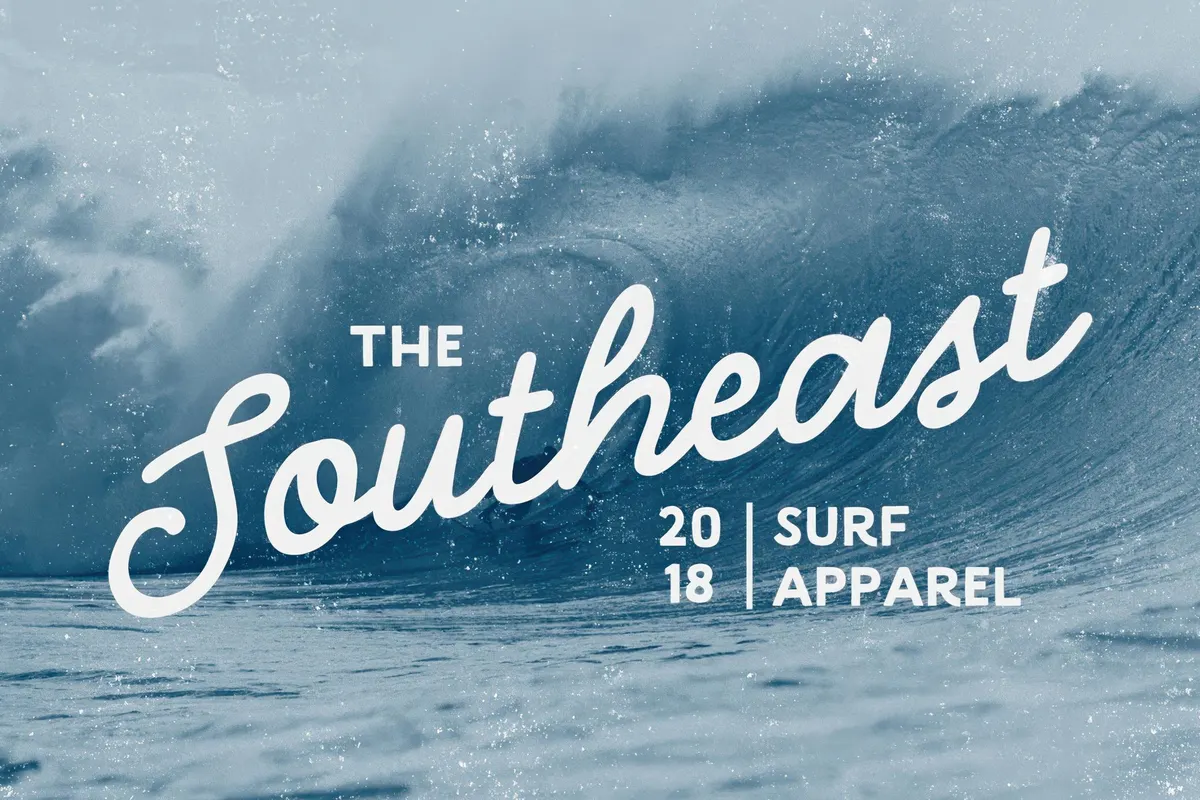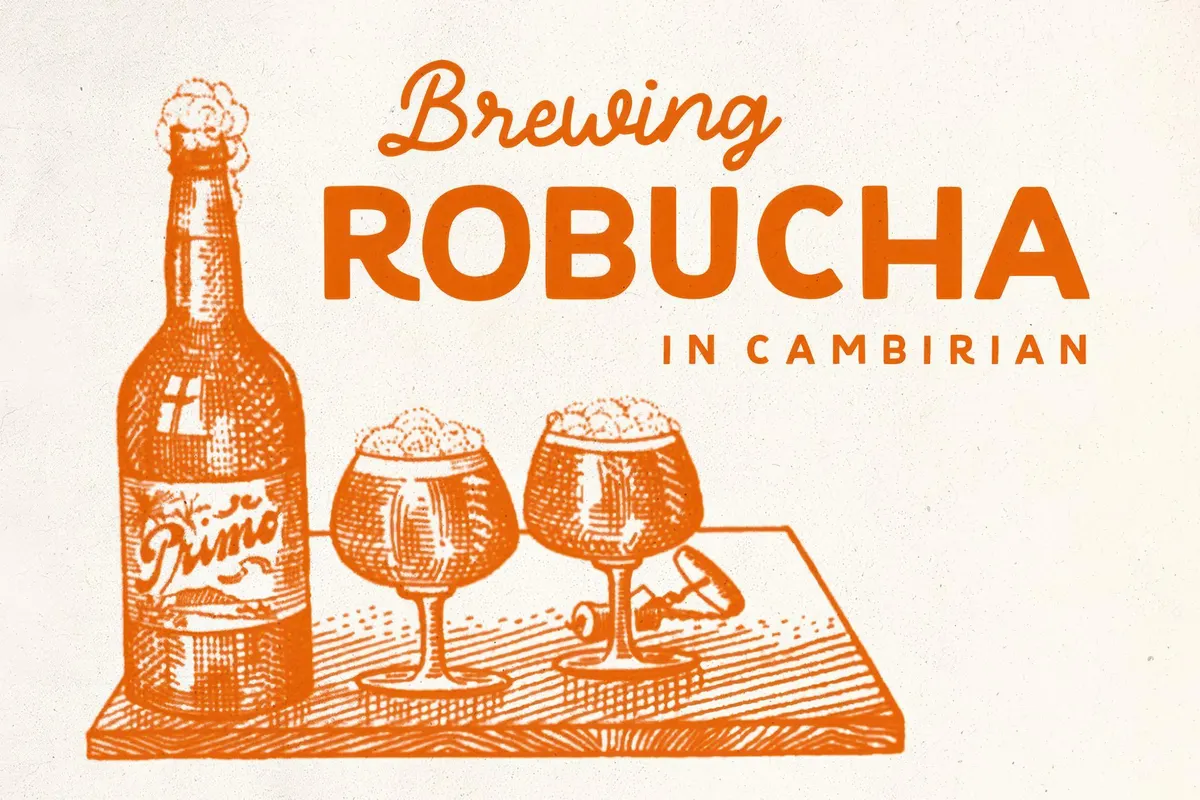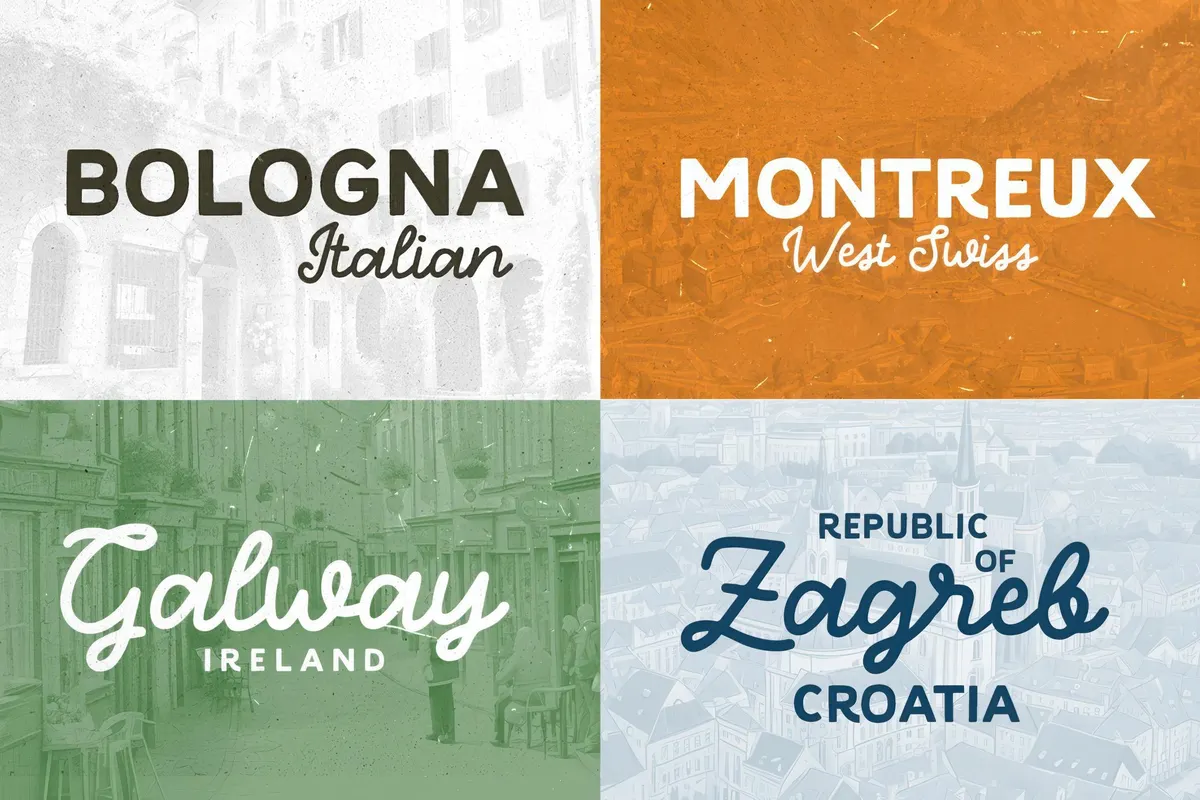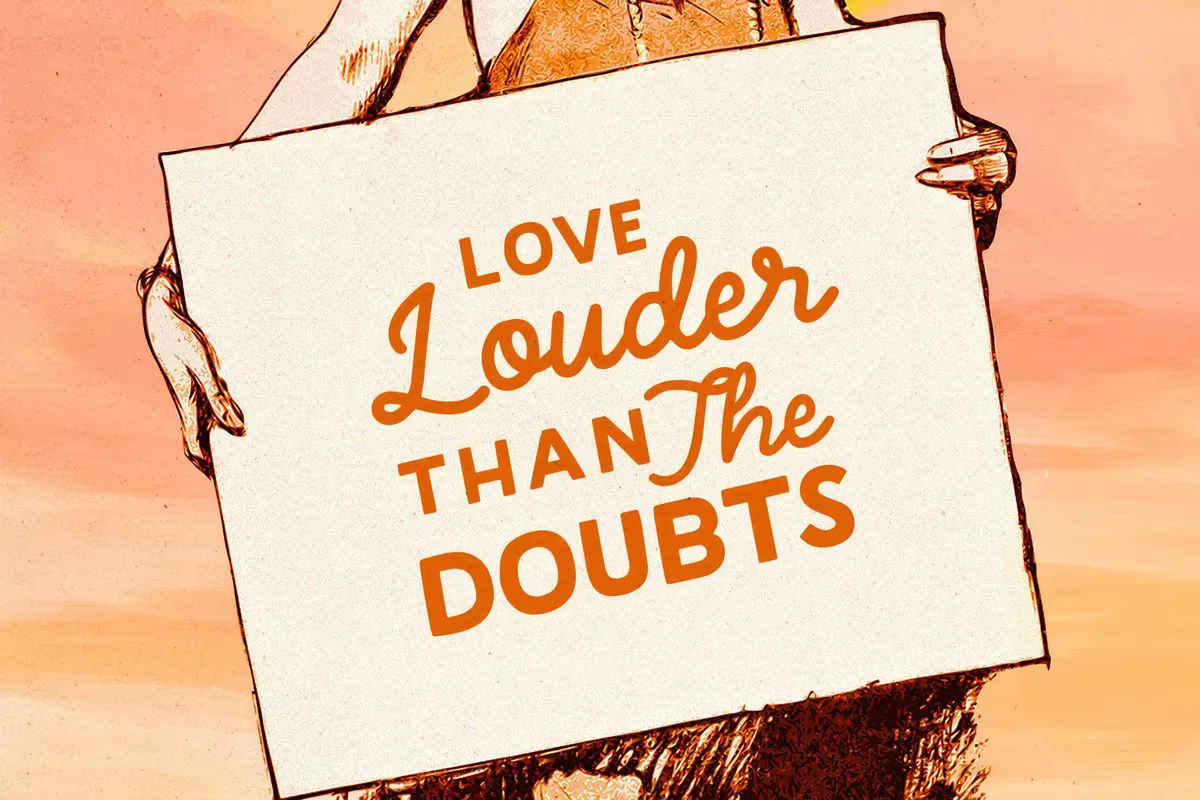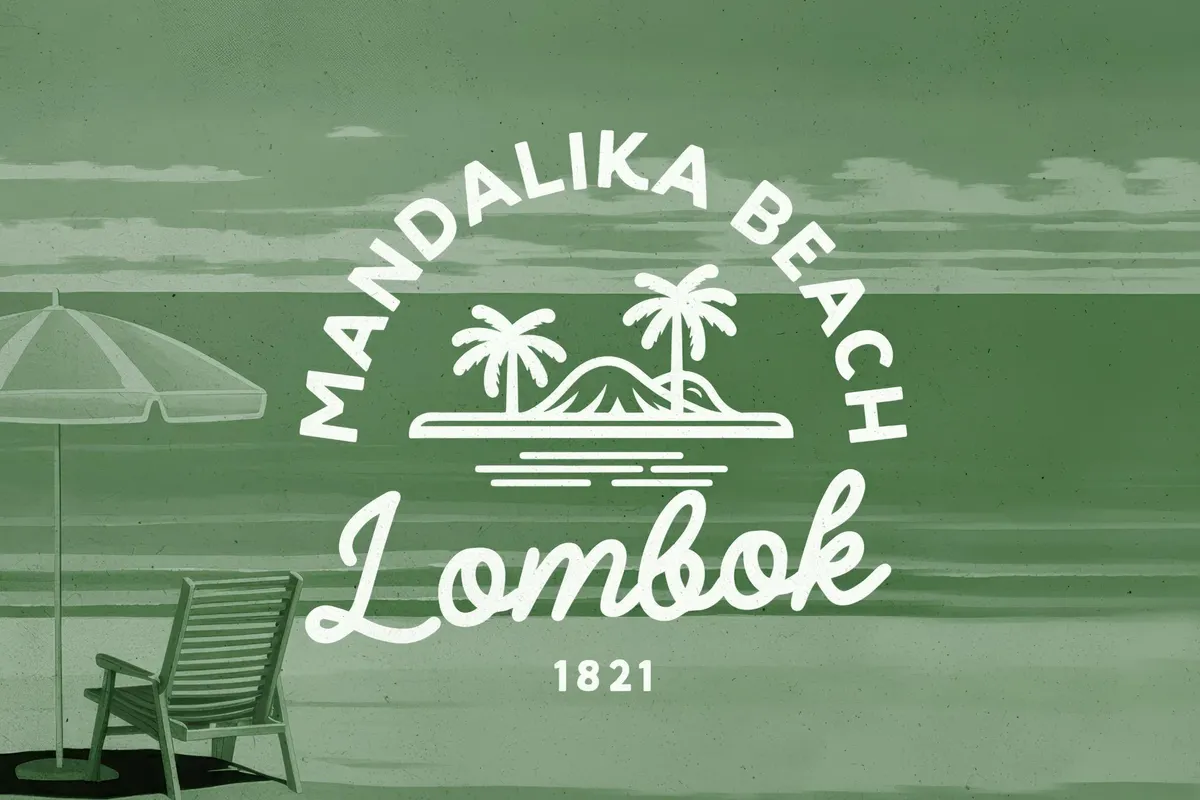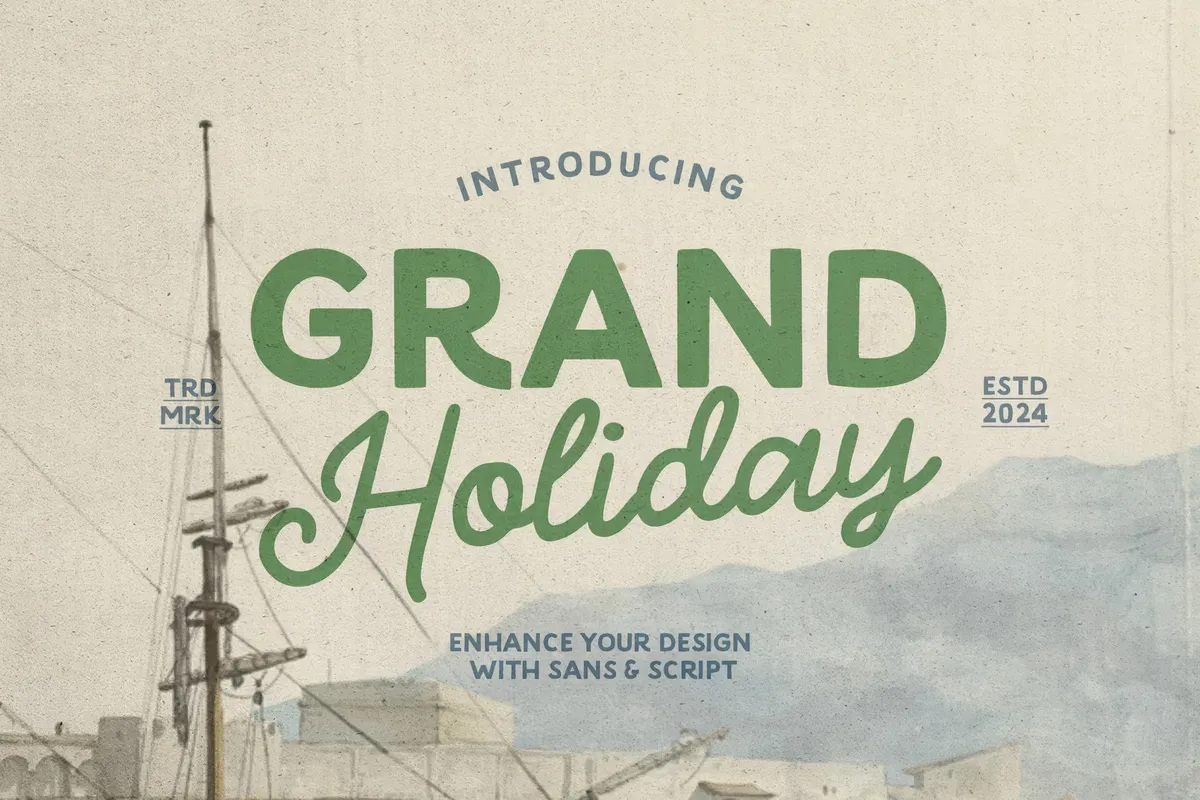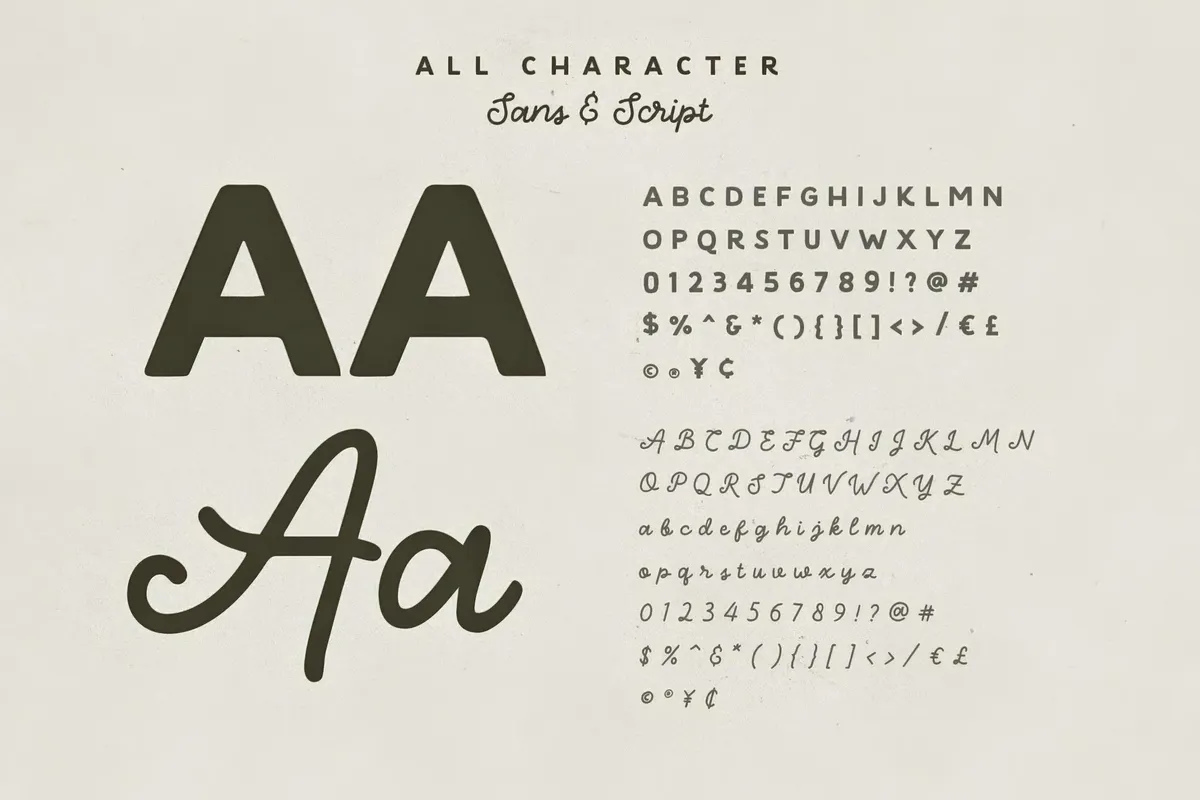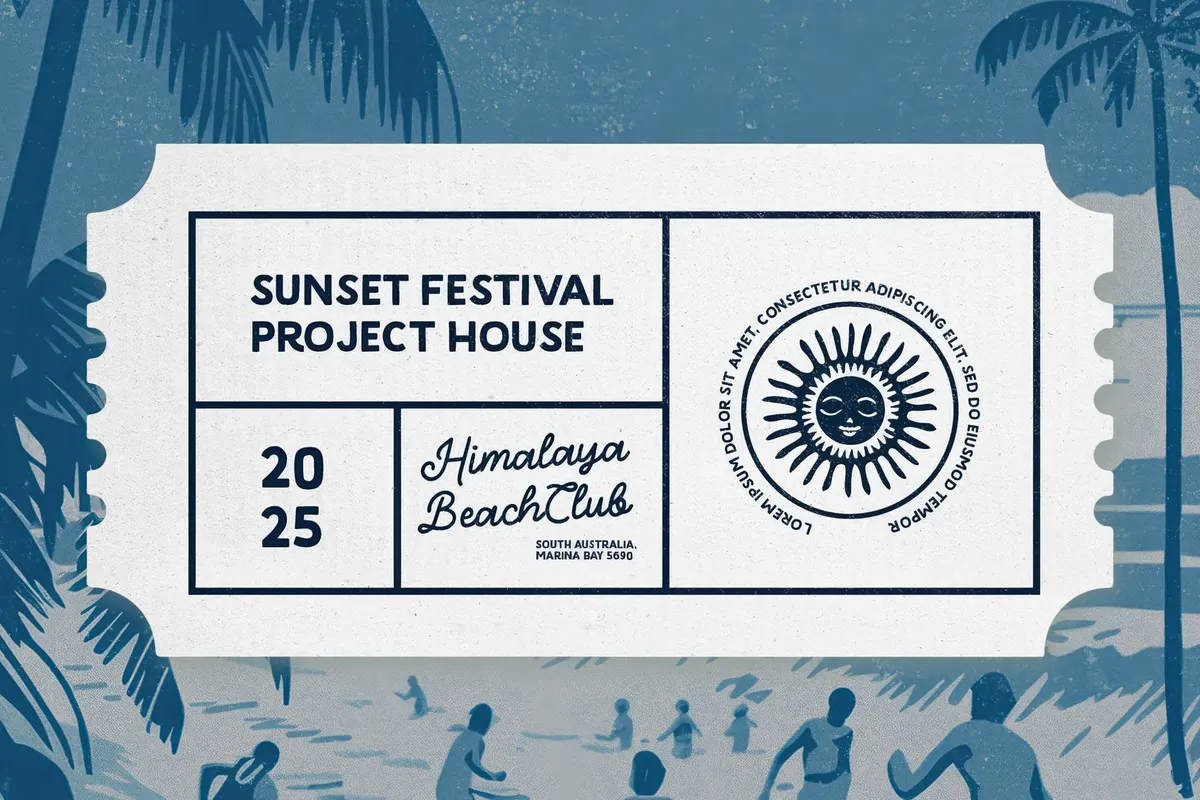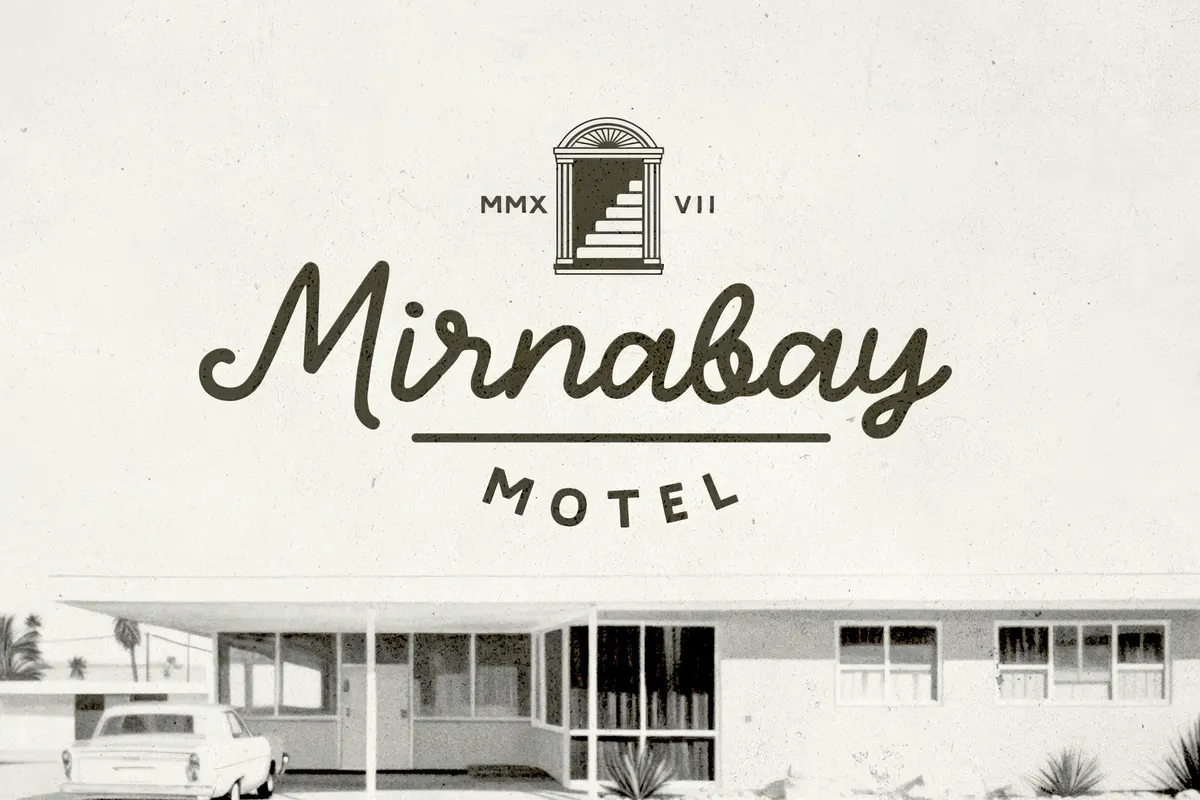
Grand Holiday — Travel Font Duo
The adventurer's spirit is calling! Pack your bags, let's unplug from the urban buzz and sail away... or at least add travel themed font duo to your next project if you are office bound. Sob-sob.
This travel-inspired typeface gives your projects that perfect sense of wanderlust. It’s not just about boats and beaches — though we wish we were there — this duo adds a bit of adventure to your work with its clean sans serif and playful monoline script, reminiscent of hand-lettered travel posters of old times. The duo is versatile enough to grace a postcard, headline a travel magazine, or add a touch of the outdoors to your brand. The sets of glyphs are pretty standard both fonts have numerals, punctuation, and uppercase letters, while the lowercase is included only in the script.